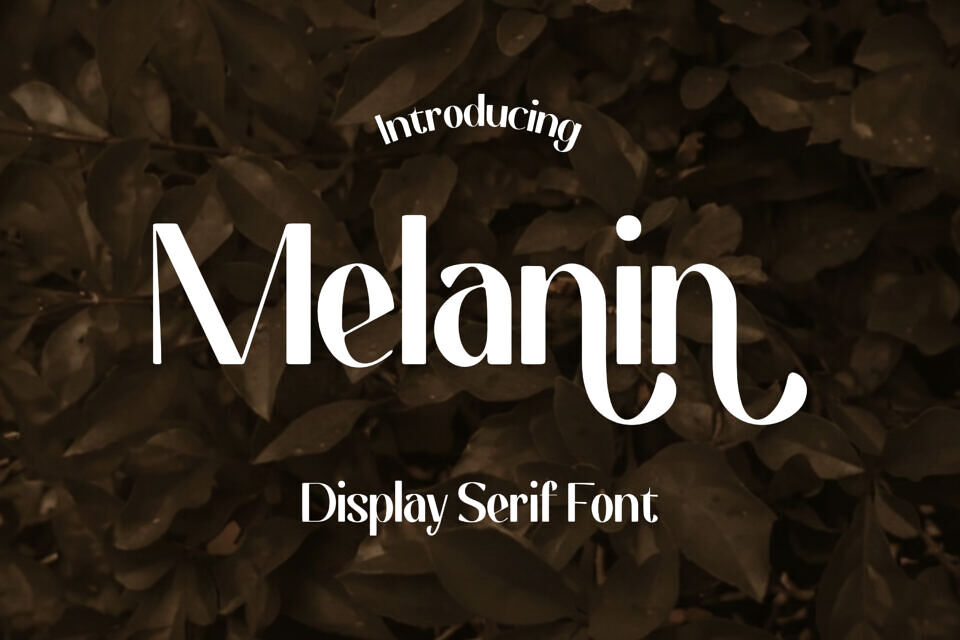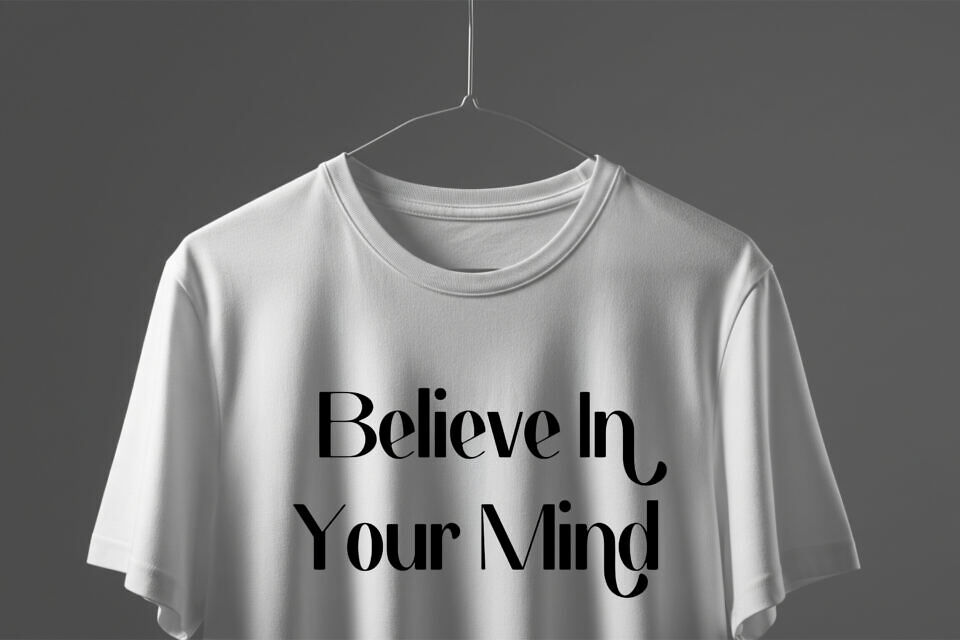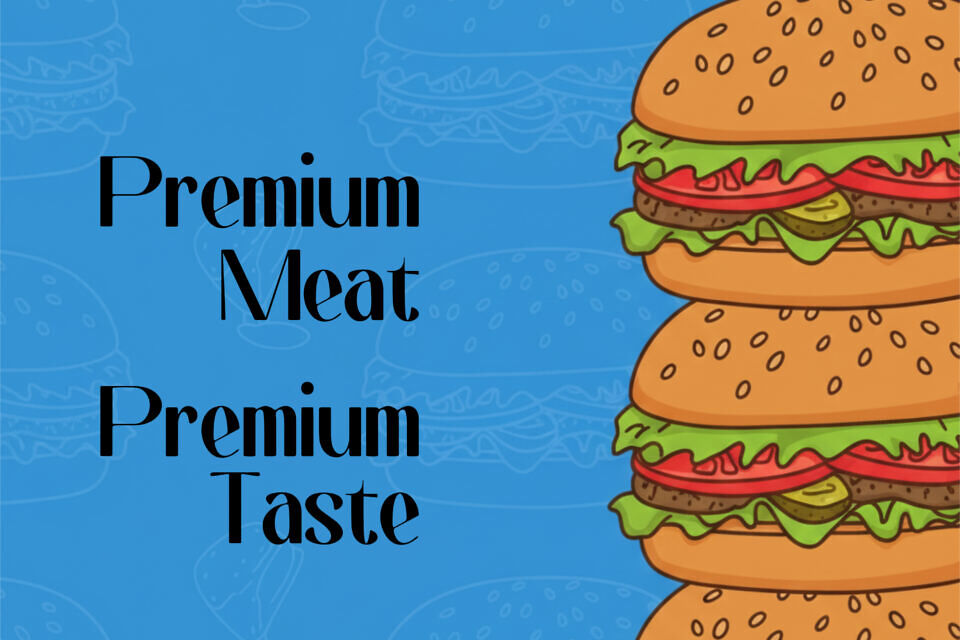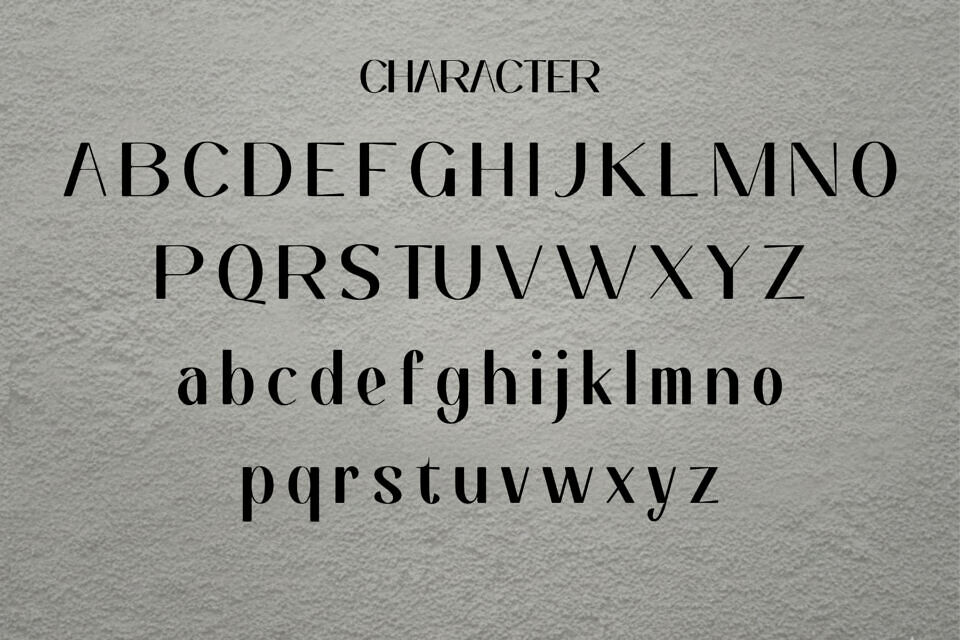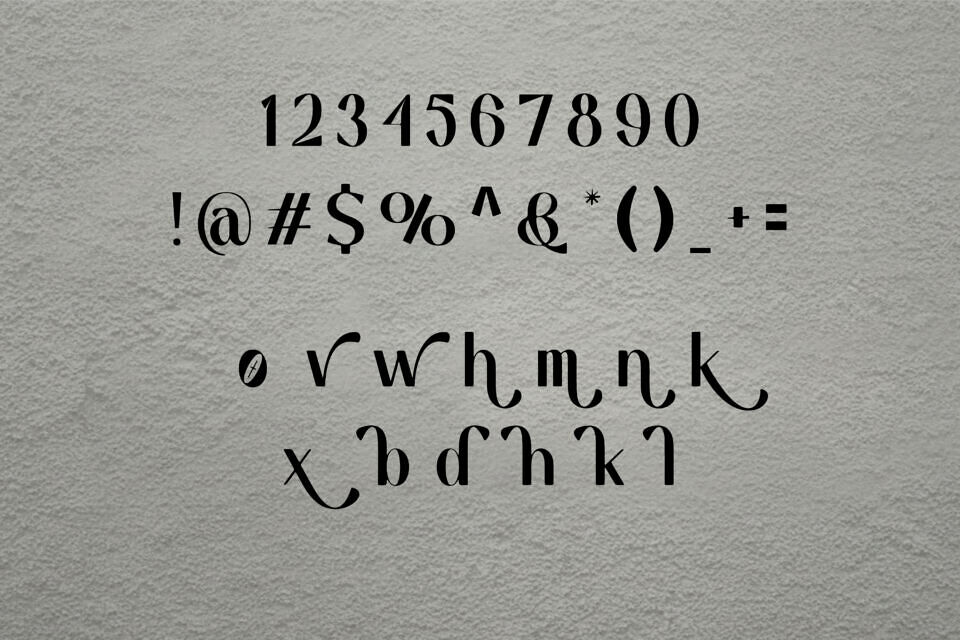
Melanin Font
Melanin Display Serif Font is a captivating typeface perfect for branding and headlines! This unique font combines high-contrast modern serif styling with elegant, distinctive swashes and curves, as seen on the lowercase ‘h’, ‘m’, ‘k’, and ‘n’. Its bold capitals and flowing lowercase letters convey luxury, sophistication, and style, making it ideal for attention-grabbing logo design, product packaging, and creative display text.